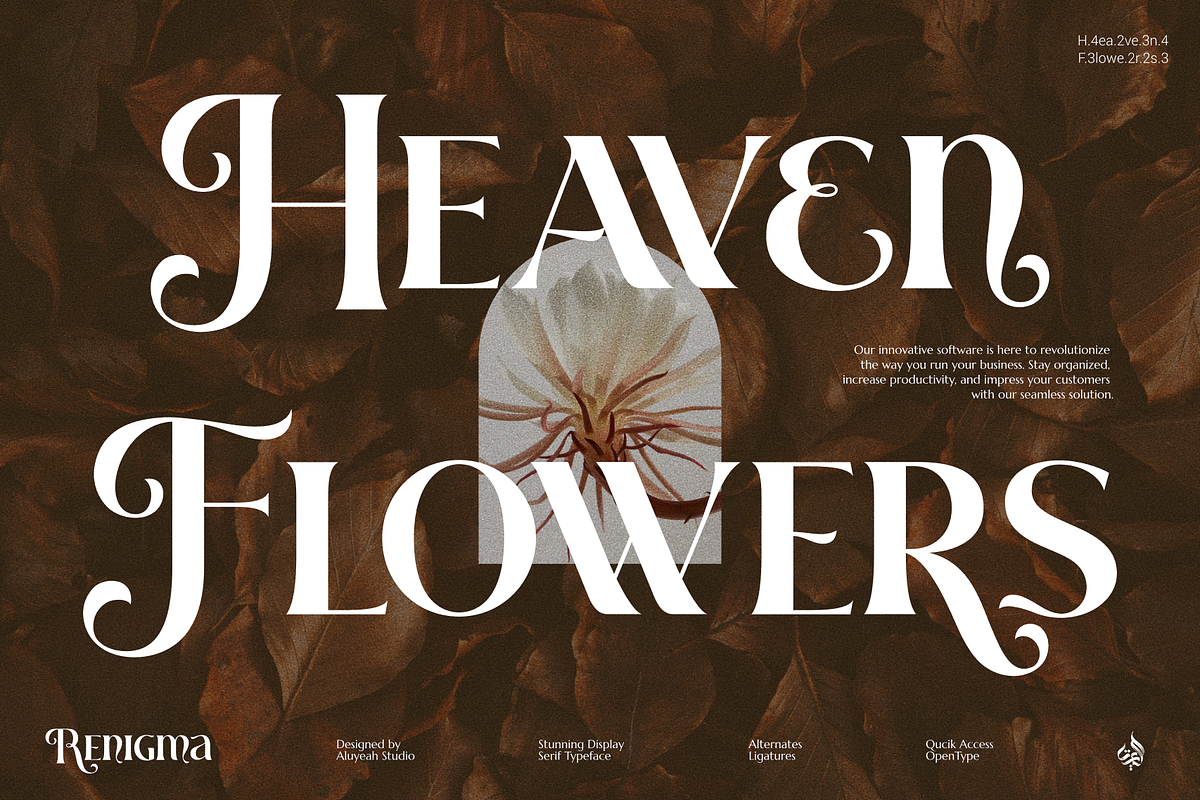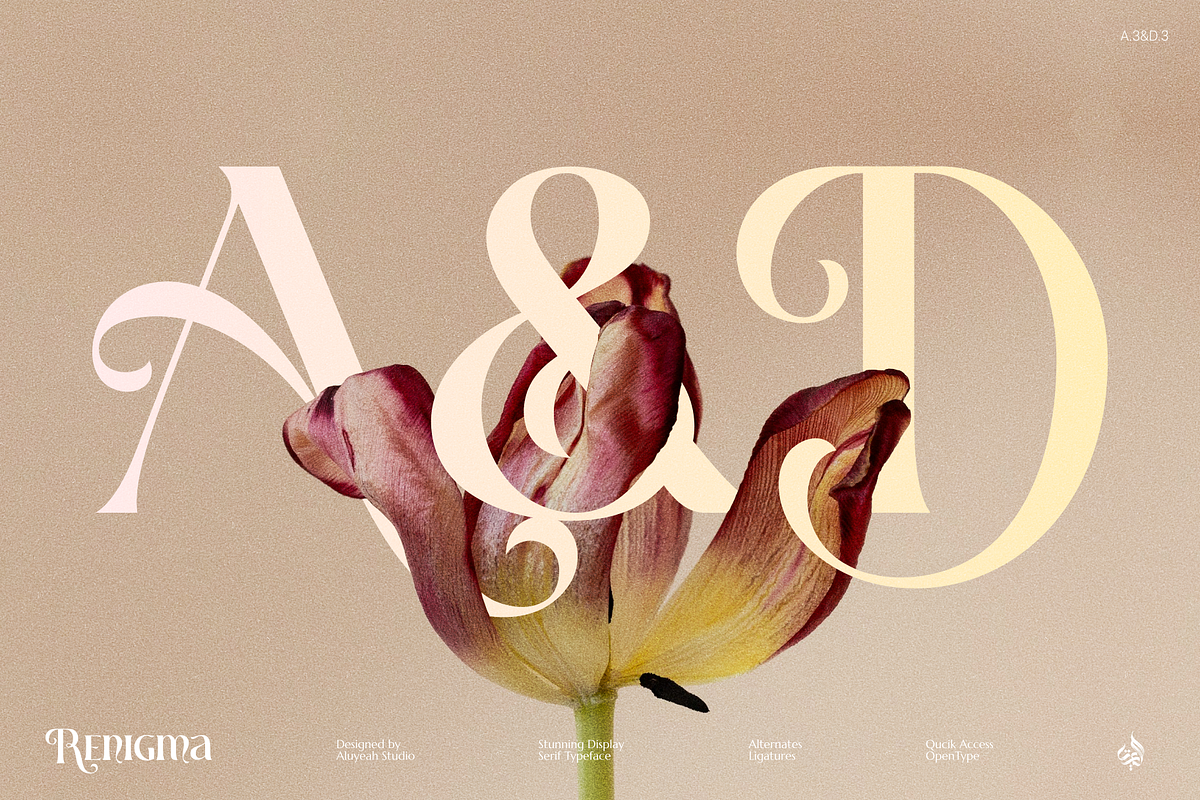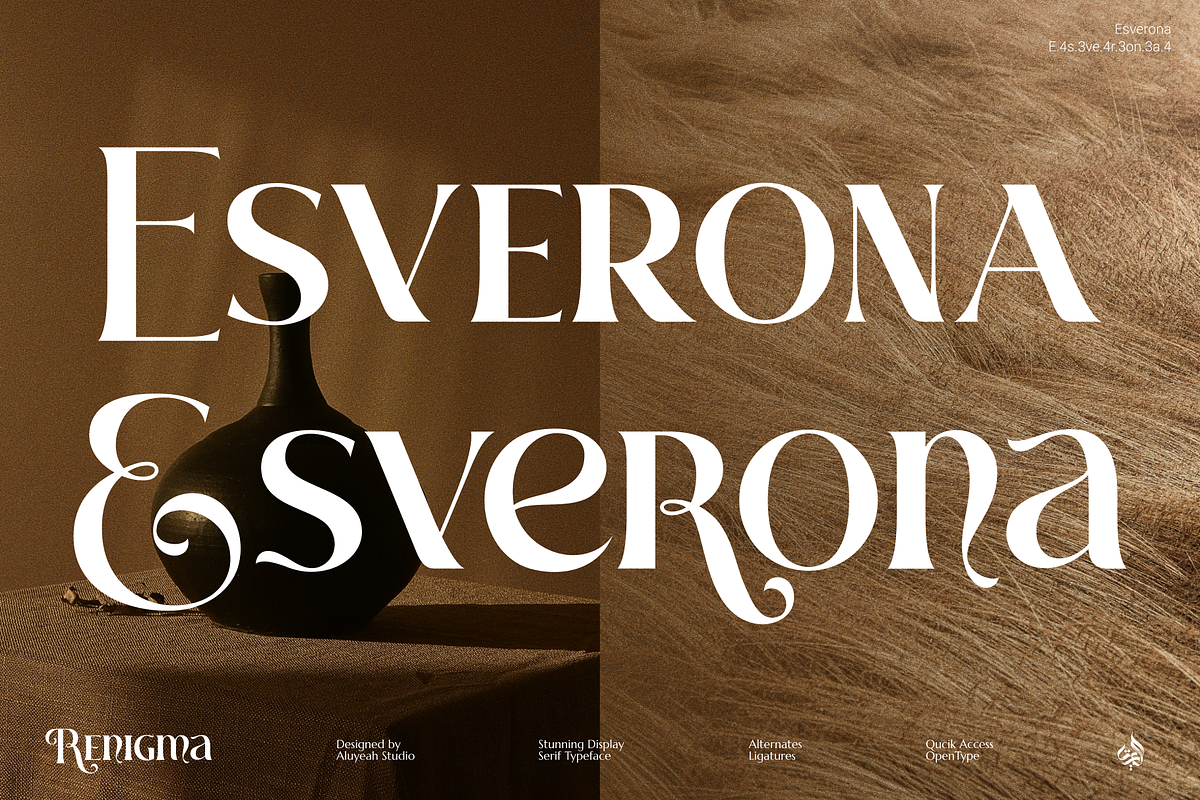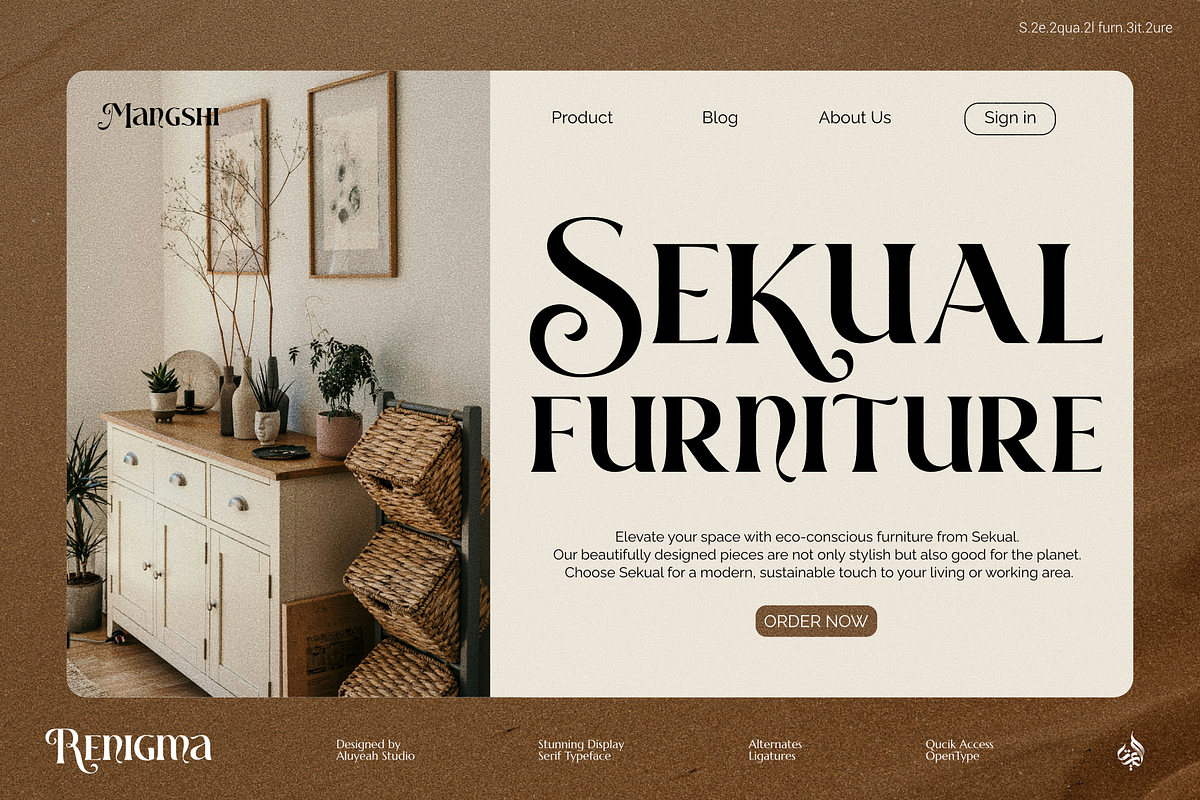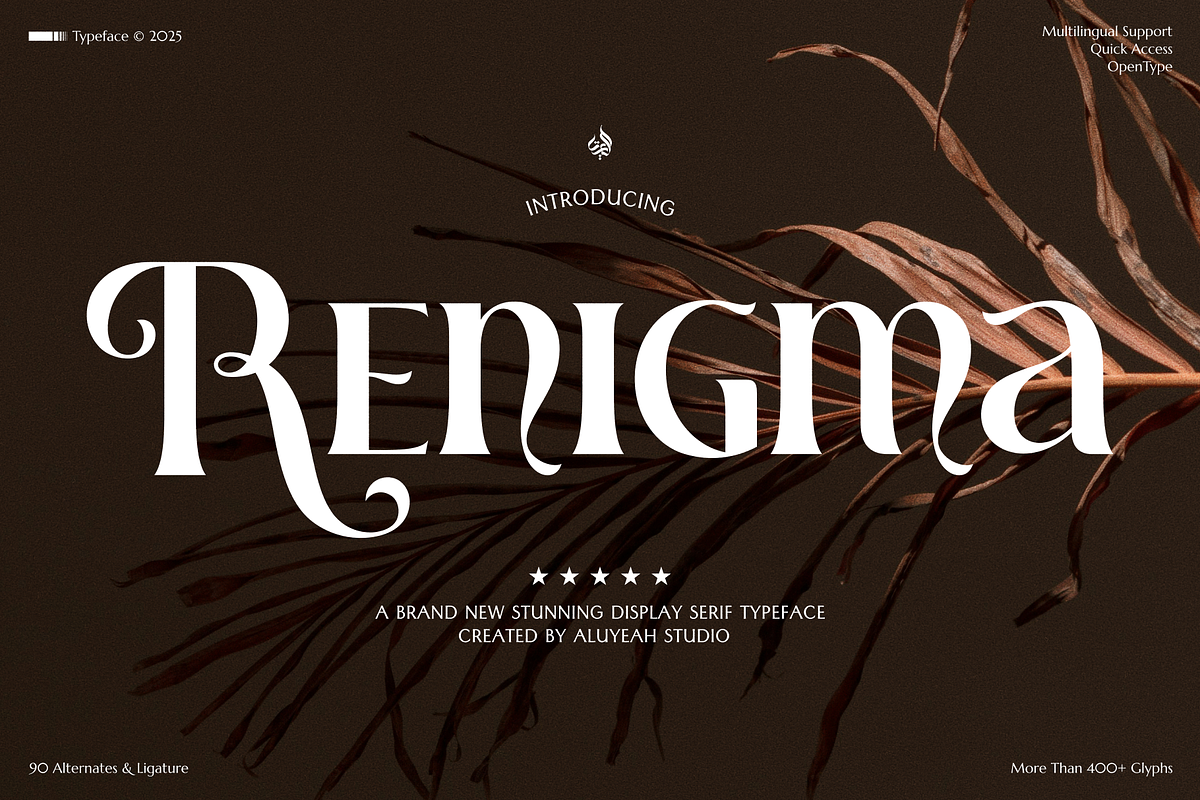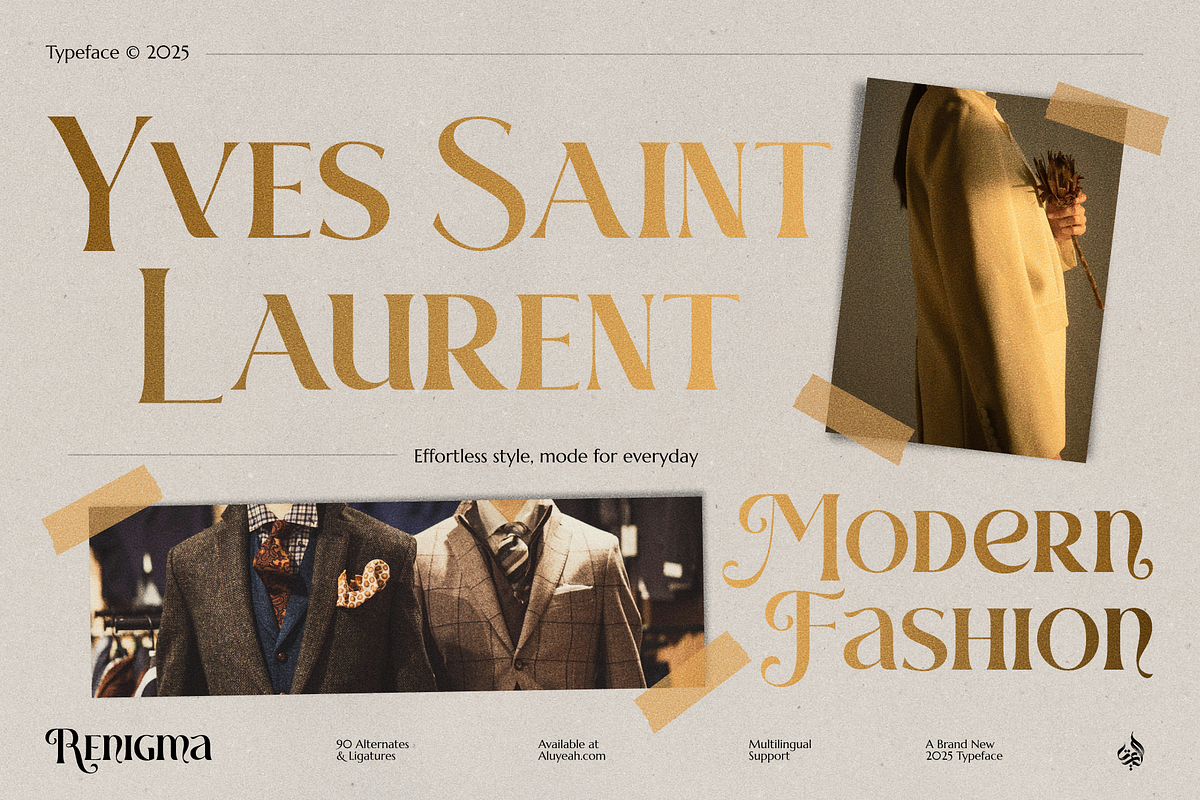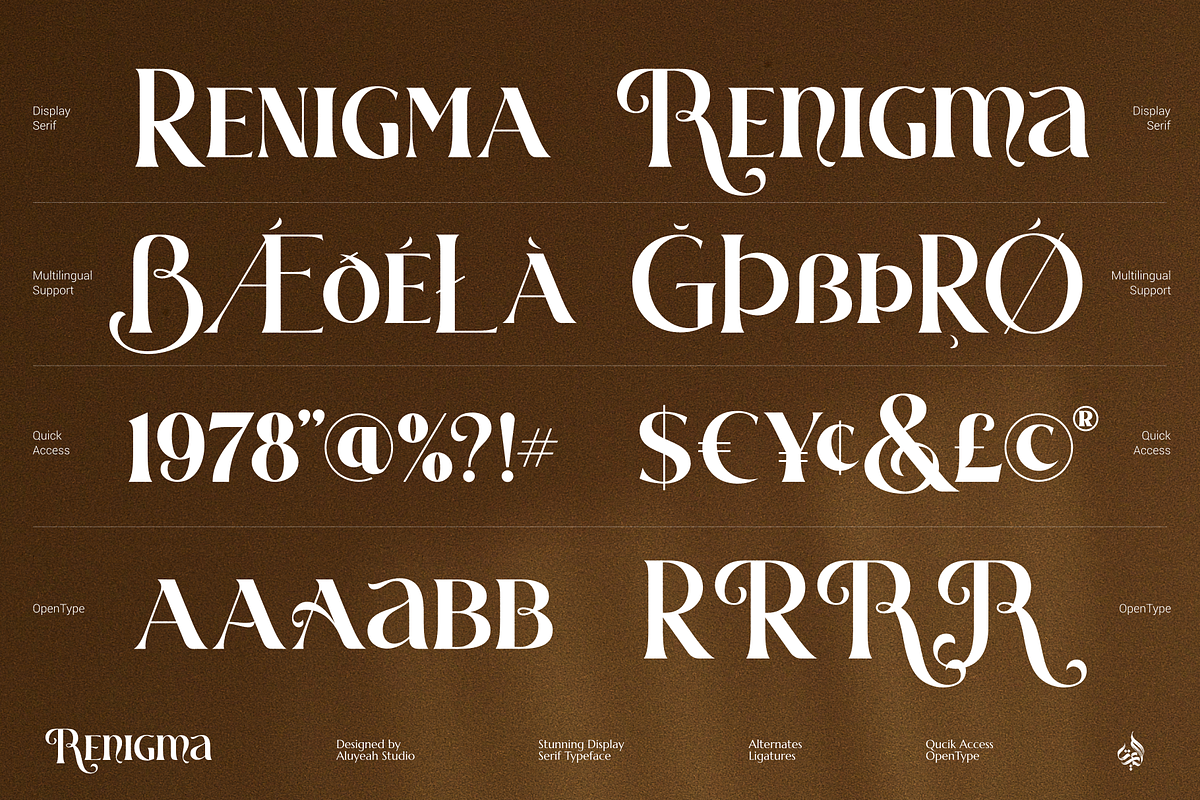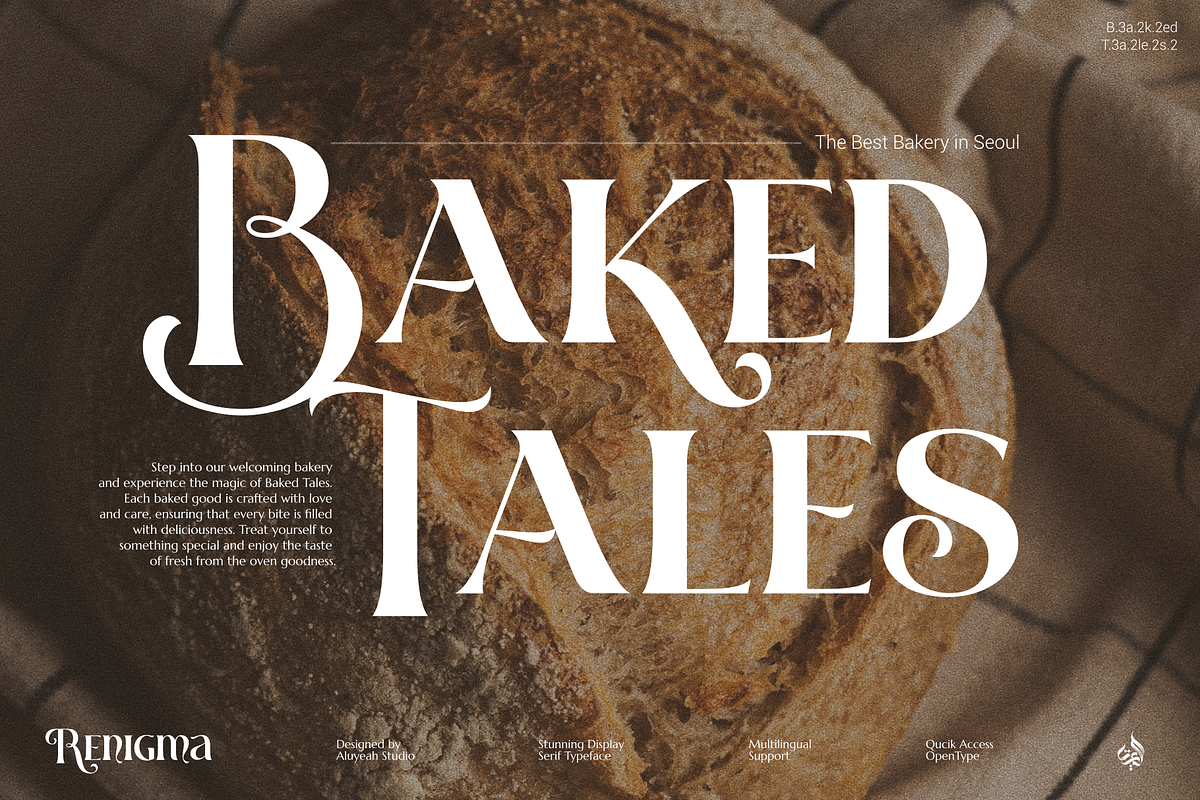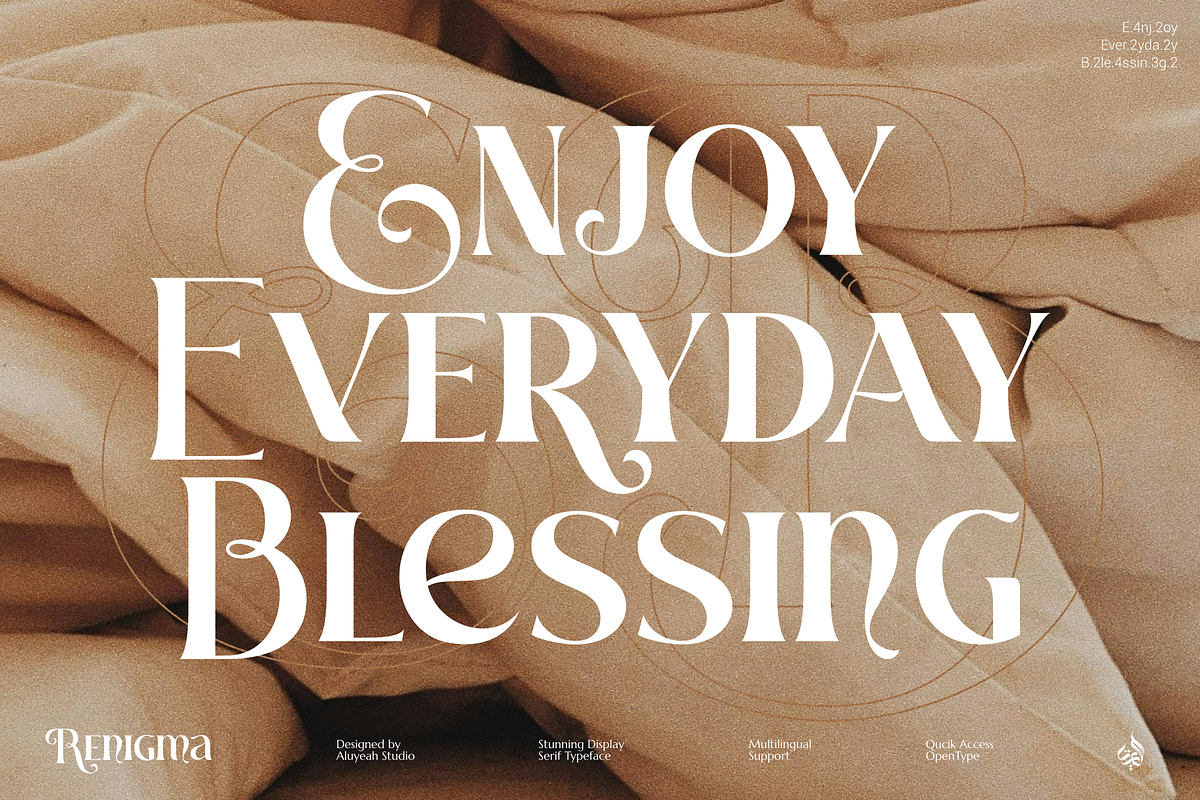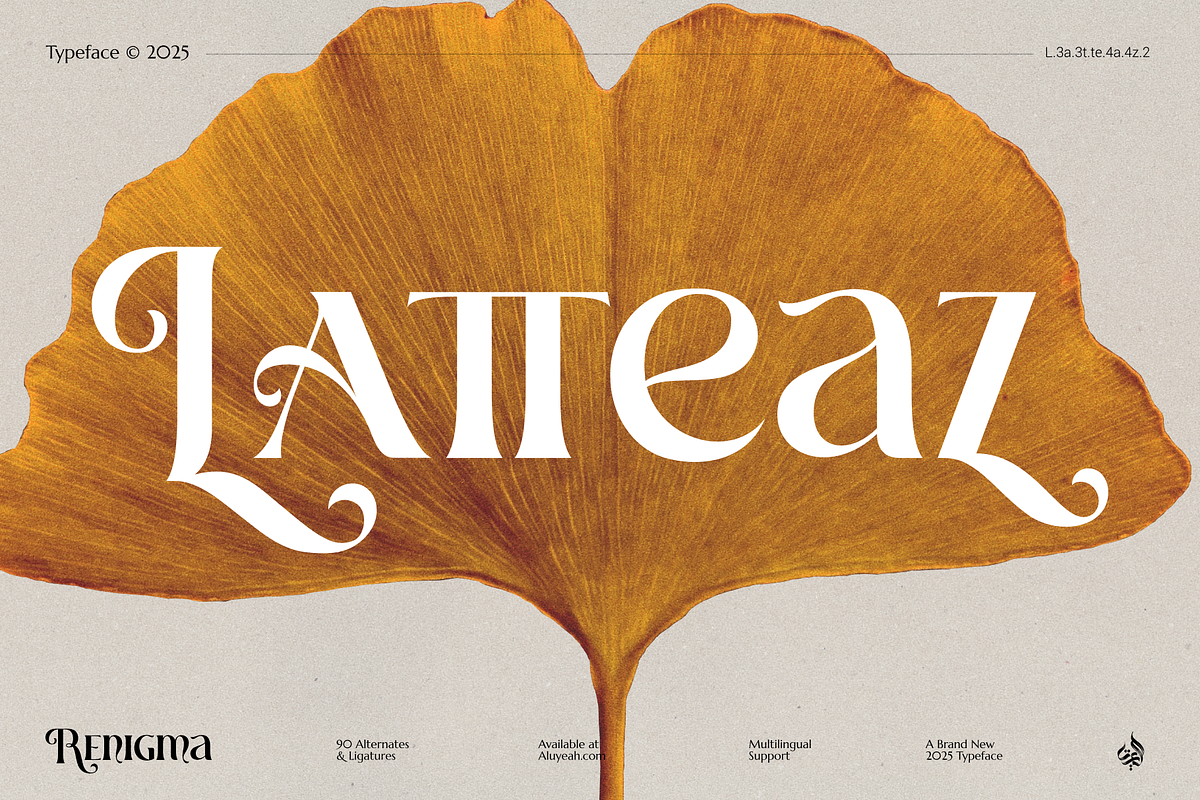
Renigma
Introducing Renigma - A Brand New Stunning Display Serif Typeface!
We love crafting fonts that are visually appealing and user-friendly. Our goal is to ensure anyone can easily use our fonts, regardless of their design background. By providing quick access features, We create fonts that are easy to work with. Making design accessible and enjoyable for everyone drives our passion, and we hope my fonts bring creativity to your projects!
Elevate your designs with Renigma, a stylish and versatile font that offers more than 400+ glyphs, over 90+ alternates and ligatures, Quick Access, and Multilingual support for 67 languages. Its quick access feature makes it easy to use all of its stunning alternates and ligatures, allowing you to create beautiful designs with ease. Creating beautiful designs has never been easier.
- OpenType support
- Multilingual support (67 languages)
- Quick Access - You can easily call alternates using quick access combination like B.2 B.3 B.4 a.2 a.3 t.t etc. To get the preview-like result, you can use the quick access combination R.3e.2n.3ig.2m.3a.4